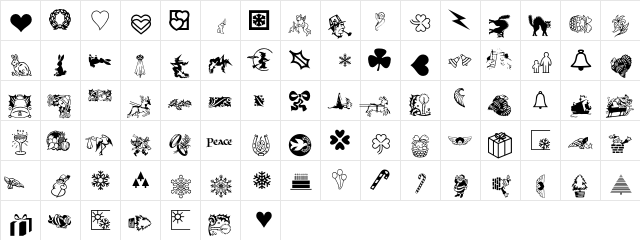
Holidays P01
Design Context for Holidays Typeface
Holidays is a composed and adaptable typeface that performs quietly and consistently across a wide range of design contexts.